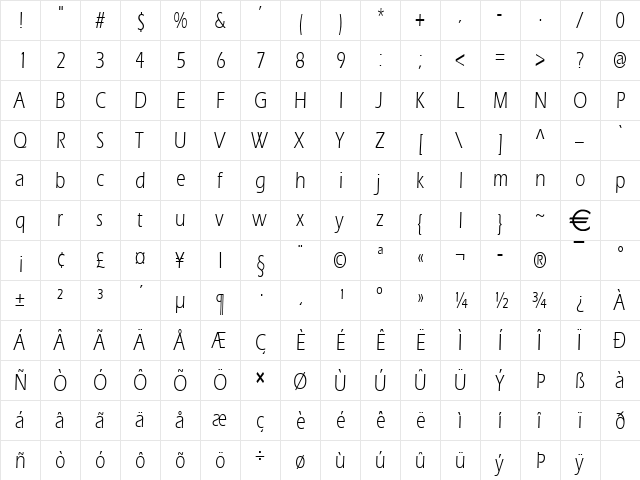
EricThin Normal
Design Context for EricThin Typeface
EricThin takes a measured approach to typography — its balanced proportions and neutral character make it a reliable workhorse for both digital and print work. Its slender proportions lend an understated elegance to any composition.
Pro Tip: Use EricThin in both headline and body roles to test its range before committing to a single application.